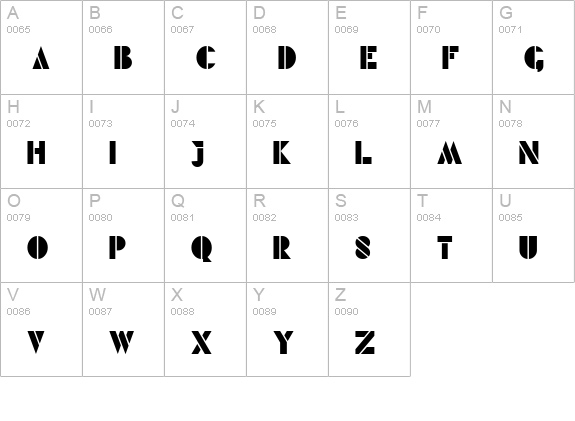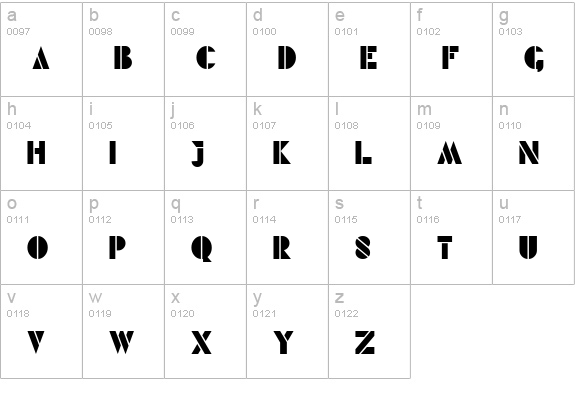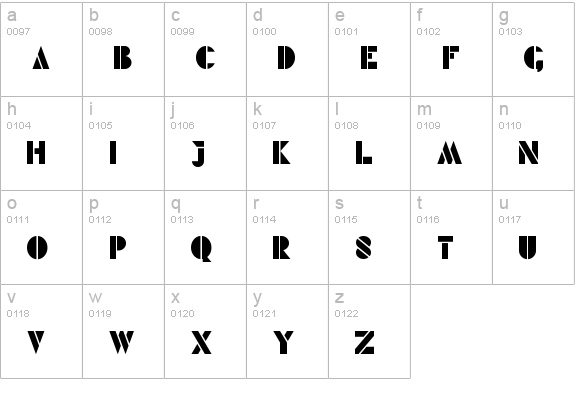
Introducing Geometron, a modern and sleek font that effortlessly combines geometric shapes with elegance. This unique typeface is perfect for adding a touch of sophistication to any design project. Geometron boasts clean lines and precise angles, creating a minimalist aesthetic that is both visually striking and highly legible. Its versatile nature allows it to be used across a wide range of design applications, from logos and branding to headlines and body text. Whether you're designing a website, creating a poster, or crafting a business card, Geometron will seamlessly adapt to your needs. What sets Geometron apart is not only its impeccable design but also its accessibility. This font is available to download for free at FontsMarket.com, making it an invaluable resource for designers, students, and anyone looking to enhance their visual creations. With its freely available download, Geometron ensures that exceptional typography is accessible to all. With a comprehensive character set that includes uppercase and lowercase letters, numerals, punctuation marks, and multilingual support, Geometron offers endless possibilities for creative exploration. Its clean and modern aesthetic exudes a sense of professionalism while adding a touch of contemporary flair to your designs. Geometron is more than just a font; it's a statement of style and innovation. Embrace the power of geometric design and elevate your projects to new heights with this remarkable typeface. Download Geometron for free at FontsMarket.com and unlock a world of typographic possibilities.